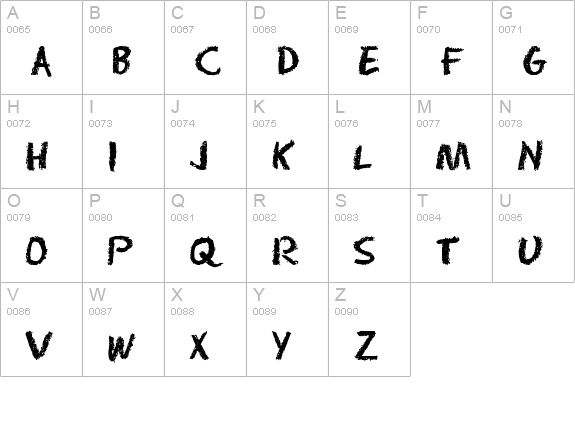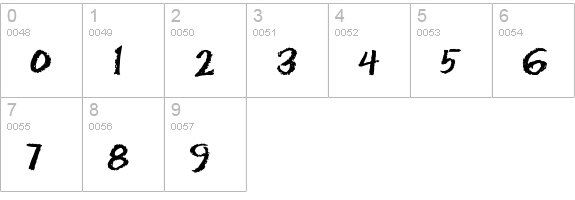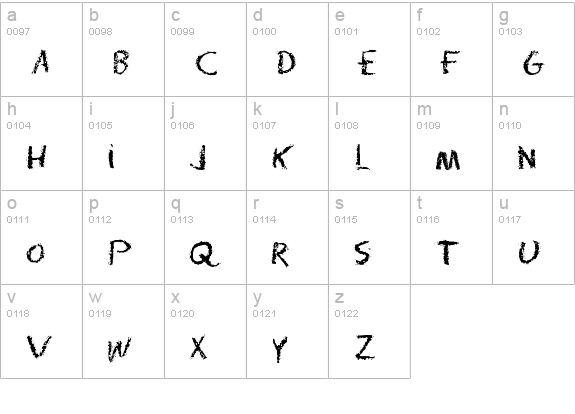
Radium Day-After J Font Details
Introducing the captivating Radium Day-After J font, a stunning typeface that exudes elegance and sophistication. Its intricate details and unique design make it a perfect choice for various creative projects, from branding to editorial design and everything in between. Radium Day-After J showcases a harmonious balance between sharp edges and smooth curves, resulting in a visually striking and memorable font. Each letter is meticulously crafted, adding a touch of sophistication and professionalism to any text it graces. This font's versatility is truly unparalleled, allowing it to effortlessly adapt to different styles and themes. Whether you're working on a modern and minimalist design or a vintage-inspired project, Radium Day-After J will elevate your work to new heights. One of the most remarkable features of Radium Day-After J is its availability as a free download on FontsMarket.com. This means that you can enhance your designs with this exceptional font without any cost. It's a rare opportunity to access such a high-quality typeface without breaking the bank. With its extensive character set and support for multiple languages, Radium Day-After J ensures that your message can be effectively communicated to a global audience. Its legibility and readability, even at smaller sizes, make it suitable for various mediums, including print and digital platforms. Whether you're a professional designer or a creative enthusiast, Radium Day-After J is a must-have font in your collection. Its timeless beauty and versatility will undoubtedly inspire and captivate your audience. So why wait? Take advantage of the free download offer at FontsMarket.com and unlock the limitless possibilities that Radium Day-After J has to offer.